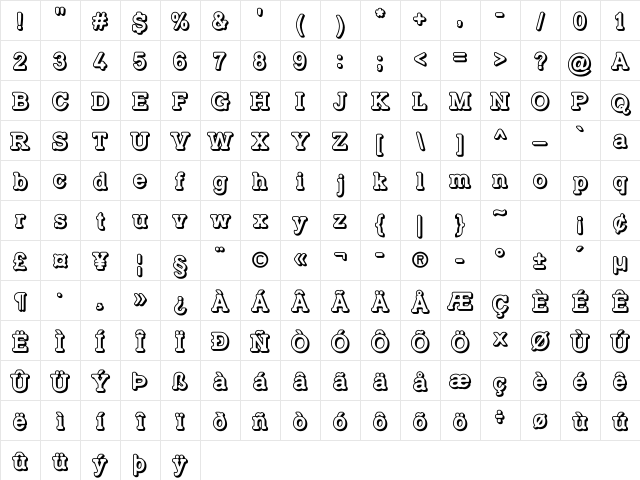
TypoSlab Irregular Shadowed Demo is built around its visual character rather than neutral utility - its distinctive forms are designed to make an impression at display sizes.
Font Pairing: Pair with a clean neutral sans-serif for body copy to let TypoSlab Irregular Shadowed Demo's character lead without overwhelming the composition.
Pro Tip: Use TypoSlab Irregular Shadowed Demo exclusively at display sizes - it was designed to be seen, not read at length. Let a neutral companion handle body copy.